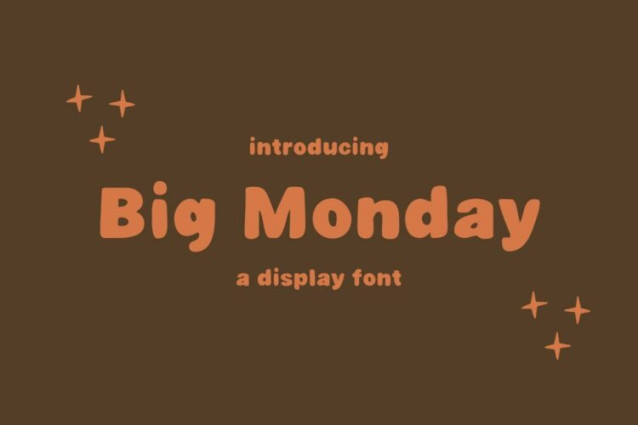
Big Monday Font
Big Monday Font is a simple and modern display font suitable for quotes, logos, headings, titles, and many more. Use it on any of your creative projects, and your designs will become outstanding!